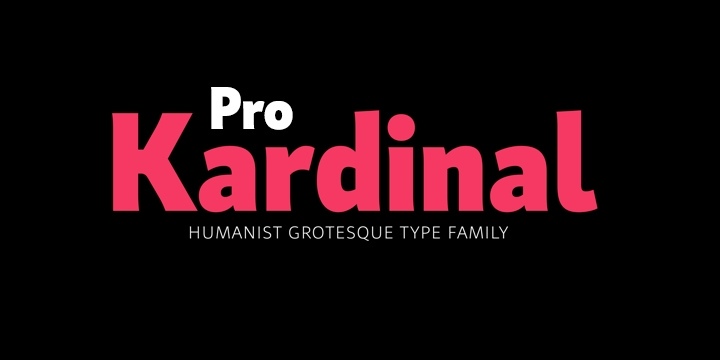
Kardinal Pro Font
Kardinal Pro Font is perfect for luxury brand identities, high-end corporate communications, prestigious award ceremonies, executive presentations, premium service providers, and sophisticated institutional materials. This distinguished typeface excels in financial services branding, luxury hotel communications, executive business cards, and any application where cardinal excellence and authoritative presence create powerful impressions of leadership and success.
What makes Kardinal Pro Font so exciting is its exceptional ability to convey supreme authority and executive leadership through masterfully crafted letterforms that command respect and inspire confidence. The font features commanding proportions, cardinal elegance, and authoritative character shapes that reflect the highest levels of professional achievement. Its distinguished presence makes it perfect for organizations and individuals who represent the pinnacle of their industries.
Kardinal Pro Font comes in a prestigious family including Thin, Light, Regular, Medium, Bold, and Executive weights. Each style features complete uppercase and lowercase character sets, executive symbols, authoritative numerals, and commanding punctuation marks. The font family also includes small caps, stylistic alternates, and premium ligatures that provide designers with comprehensive tools for creating truly distinguished communications with cardinal authority.
The font's executive character makes it particularly effective for C-suite leaders, luxury service providers, prestigious institutions, and market-leading organizations. Its commanding legibility ensures that Kardinal Pro Font maintains clarity while projecting maximum authority and preserving its distinctive leadership personality. The font's ability to inspire confidence and communicate supreme excellence makes it an invaluable crown for any project requiring typography that embodies the cardinal principles of leadership, represents the highest standards of professional achievement, and commands the respect of industry peers.